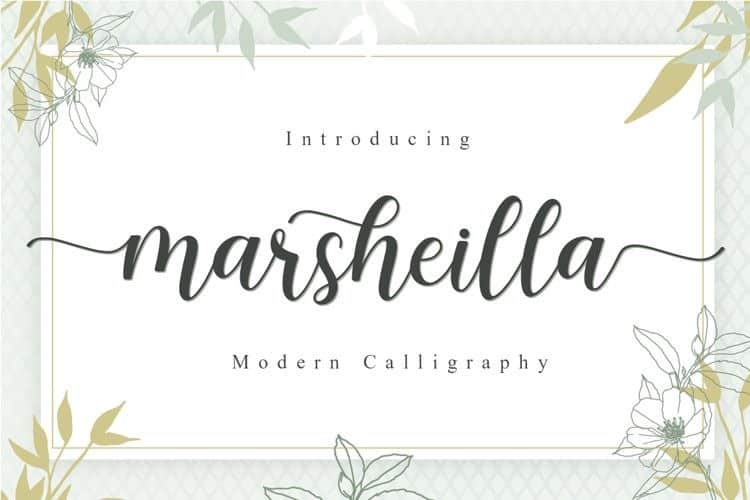
Marsheilla Calligraphy Font
Introduce new Marsheilla Font is a unique blend of classic and modern calligraphy typeface. imperfect style ups and downs, like a dance letters, smooth, clean and simple.
Marsheilla Font perfect for wedding, event, invitation, escort card, table number, header menus, display, logos, slider blog, custom address, stamps, packaging, greeting card, etc. This font is free for PERSONAL USE.